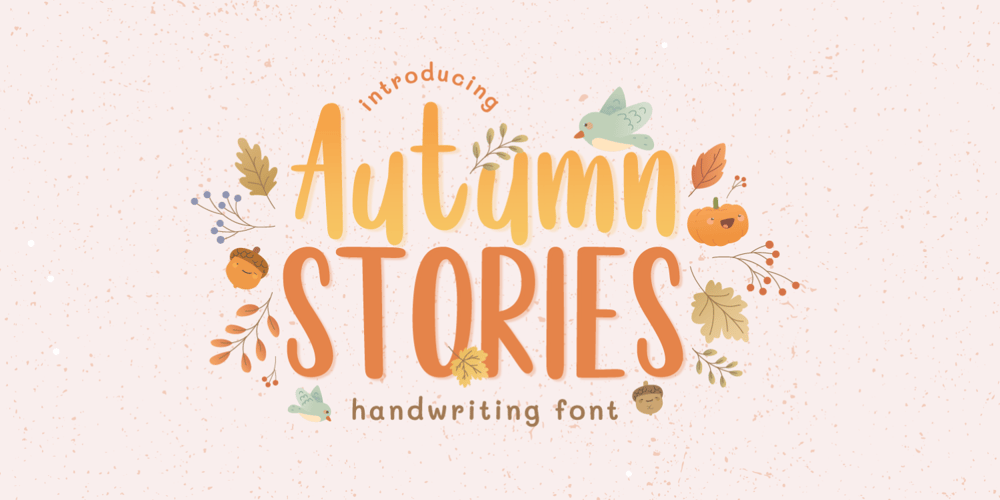
Autumn Stories
Autumn Stories font
Autumn Stories Font Family was designed by Miftahul Habib and published by Tlatous Type. Autumn Stories contains 1 styles and family package options. Introducing Autumn Stories by Tlatous Type.Autumn Stories is a Modern Script Handwritten Font.This font is perfect for product packaging, branding project, megazine, social media, wedding, or just used to express words above the background.